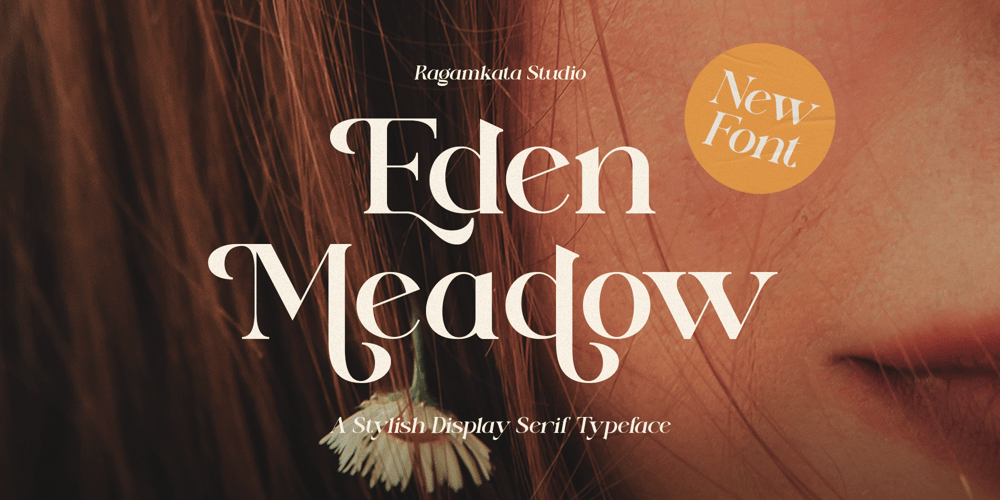
Eden Meadow Font Family was designed by Yogiswhara Dio Prakoso Riadi and published by RagamKata. Eden Meadow contains 1 styles and family package options. Modern Branding TypefaceEden Meadow is unique Font as it can be used for a variety of design styles. It fits in wonderfully for free-spirited, boho designs and also for more classy editorial looks!There are a lot of fun stylistic alternates available to use with this font. These letters are embedded into the font file and easily accessible in programs such as photoshop and illustrator.Eden Meadow Features:- Uppercase & Lowercase- Alternates & Ligatures- Numerals & Punctuation- Accented characters- Multilingual Support- Unicode PUA EncodedIf you want the SVG version please contact me.While using this product, if you encounter any problem or spot something we may have missed, please don’t hesitate to drop us a message. We’d love to hear your feedbacks in order to further fine-tune our products.Thanks, Have a wonderful dayRagamkata Studio